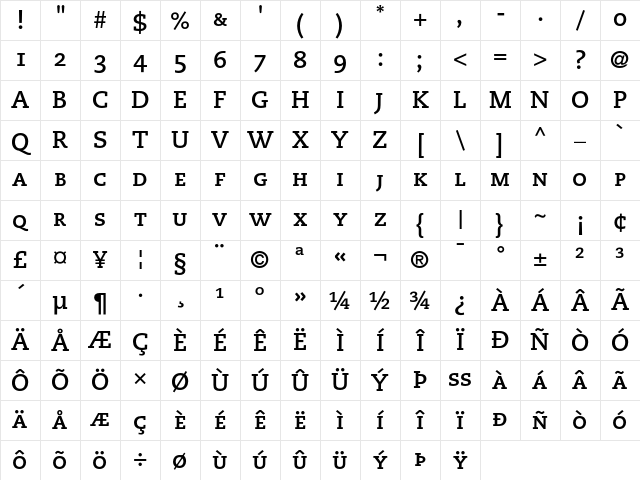
PMN Caecilia 75 Bold Small Caps & Oldstyle Figures
Style: 75 Bold Small Caps & Oldstyle Figures
Design Context for PMN Caecilia
PMN Caecilia carries the refined structure of traditional serif typography, with bracketed terminals and considered proportions that communicate credibility and craft. Its bold stroke weight gives it real presence on the page.